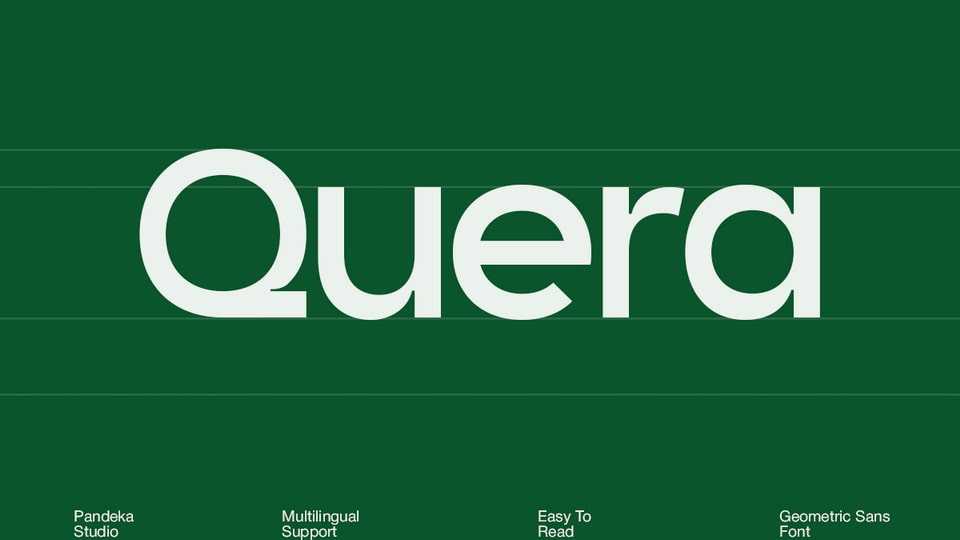
Download Quera font, a modern geometric sans-serif typeface designed for professionalism, clarity, and corporate identity with its clean lines, balanced proportions, and contemporary aesthetics.